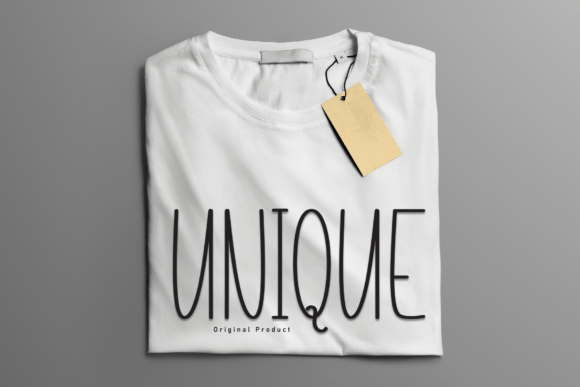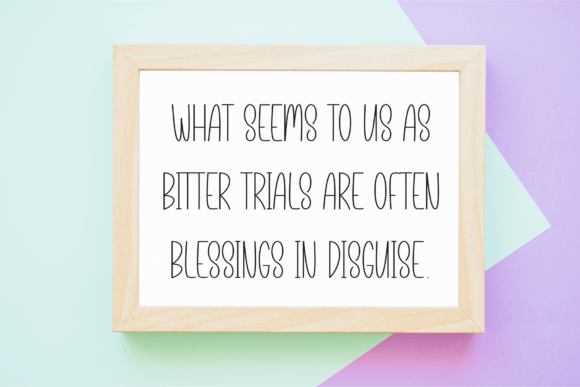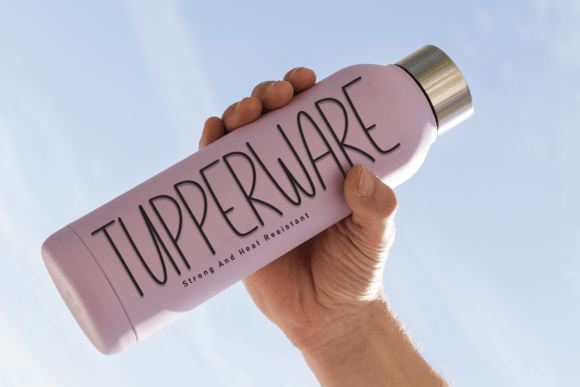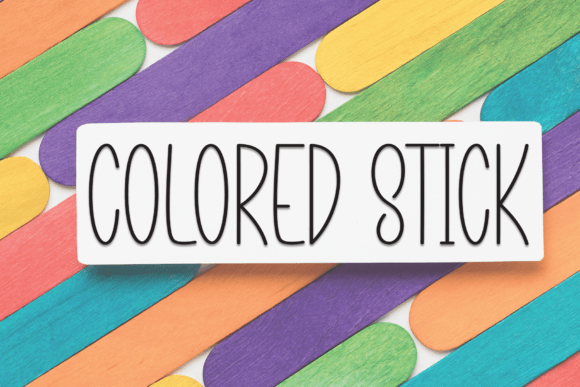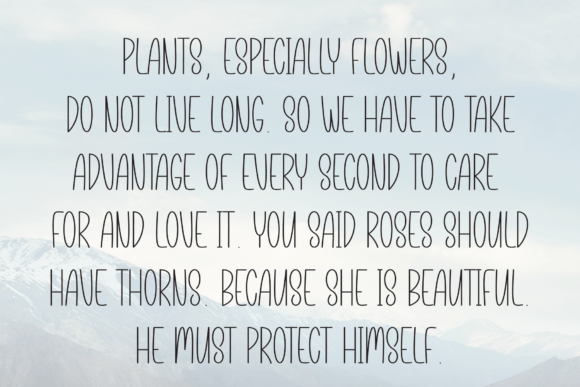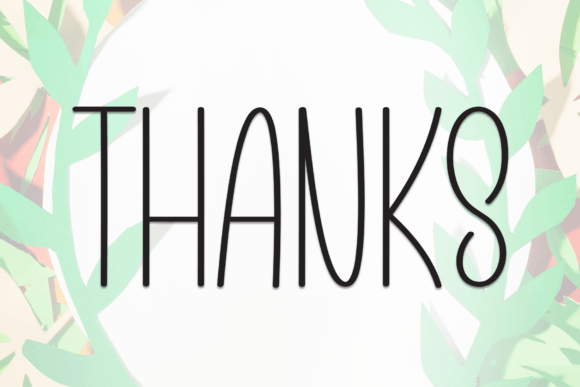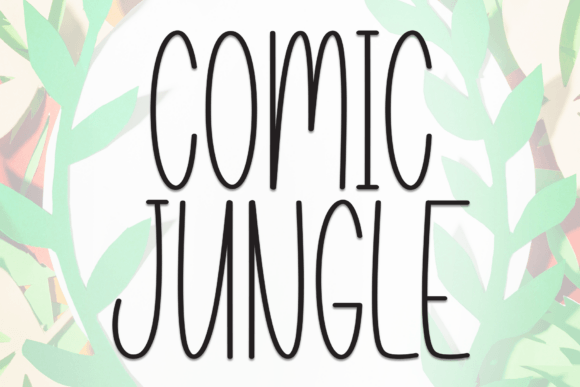
Introducing Comic Jungle Font: The Ultimate Playful Display Font
Are you tired of using the same old fonts for your designs? Do you want to add a dash of playfulness and joy to your creations? Look no further than Comic Jungle Font, an enchantingly sweet and affable handwritten display font that’s perfect for designers and crafters alike. In this article, we’ll dive into the world of Comic Jungle Font and explore its unique features, uses, and benefits.
A Font that Brings Joy and Fun
Comic Jungle Font is an excellent choice for anyone looking to add a light-hearted and delightful touch to their designs. With its unique charm and friendly vibe, this font is sure to bring a smile to your face and your audience’s face. Whether you’re creating wedding invitations, greeting cards, or any other type of design, Comic Jungle Font is the perfect tool to infuse your work with joy and fun.
Wedding invitations and cards are a great way to showcase the playful and romantic side of a couple’s special day. Comic Jungle Font is an excellent choice for crafting wedding invitations or cards that are both elegant and playful. The font’s sweet and affable nature makes it perfect for conveying the happiness and excitement of the occasion. With Comic Jungle Font, you can create beautiful and unique wedding invitations that will set the tone for a memorable and joyful celebration.
A Versatile Font for Various Design Projects
Comic Jungle Font is not just limited to wedding invitations and cards. Its playful and friendly nature makes it a versatile font that can be used for a wide range of design projects, including:
- Greeting cards: Create beautiful and unique greeting cards for special occasions like birthdays, anniversaries, and holidays.
- Social media graphics: Add a dash of playfulness to your social media graphics and make them stand out from the crowd.
- Logos and branding: Use Comic Jungle Font to create a fun and memorable logo or brand identity for your business or product.
- Signs and posters: Create eye-catching signs and posters that will grab the attention of your audience.
Key Features of Comic Jungle Font
So, what makes Comic Jungle Font so special? Here are some of its key features:
- Handwritten display font: Comic Jungle Font is a beautifully crafted handwritten display font that’s perfect for adding a personal touch to your designs.
- Unique charm: The font has a unique charm that’s sure to make your designs stand out from the crowd.
- Playful and friendly: Comic Jungle Font has a playful and friendly nature that’s perfect for conveying joy and fun.
- Easy to read: Despite its playful nature, Comic Jungle Font is easy to read and understand, making it perfect for use in a wide range of design projects.
Why Choose Comic Jungle Font?
So, why should you choose Comic Jungle Font for your design projects? Here are some compelling reasons:
- Adds a dash of playfulness: Comic Jungle Font is the perfect way to add a dash of playfulness and joy to your designs.
- Versatile: The font can be used for a wide range of design projects, from wedding invitations to social media graphics.
- Easy to use: Comic Jungle Font is easy to use and can be easily integrated into your design workflow.
- Unique: The font has a unique charm that’s sure to make your designs stand out from the crowd.